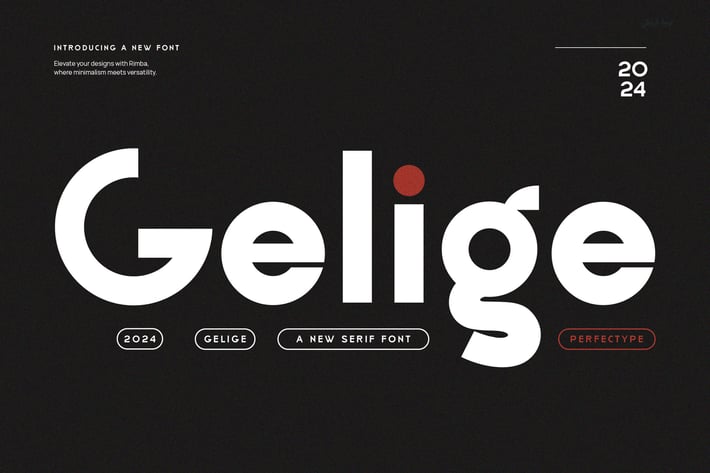
Gelige Modern Futuristic Sans Serif Font
Gelige is a modern and futuristic sans serif font that brings a clean and professional look to your designs. First, its geometric shapes and sharp edges give it a fresh and modern style. Because of this, it works great for tech, digital, and new business projects.
Also, Gelige is very flexible. Whether you use it for logos, headlines, posters, or websites, it stays easy to read at any size. Plus, its balanced shapes help keep the text clear, even when it is small. So, you can use it for both big titles and smaller text.
In addition, Gelige’s uppercase letters have even line widths, which creates a smooth and balanced look. This means the font is simple but strong. It fits well for ads, product packages, and web design. Besides, it pairs well with other fonts, especially clean sans serifs or simple serif fonts. This lets you make interesting text styles.
Another good point is that Gelige feels modern and easy to read at the same time. Because of this, it is great for technology companies, gaming, or science projects. In fact, its simple style keeps your message clear and professional while adding a trendy look.
To sum up, Gelige offers:
- A modern, fresh, and geometric look
- Easy reading at all sizes
- Clean sans serif with sharp edges
- Fits well for branding, websites, and print
- Perfect for tech, digital, and new projects
- Works well with other fonts
- Simple yet strong style
Overall, choosing Gelige adds a fresh and modern feel with a touch of future style. This way, your designs will stand out and look great to your audience.